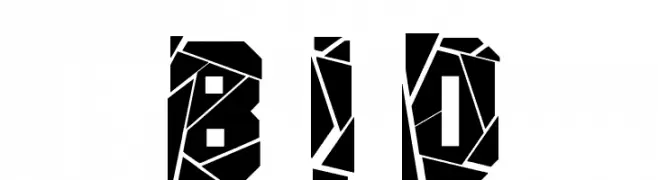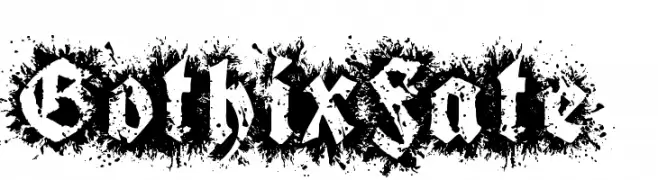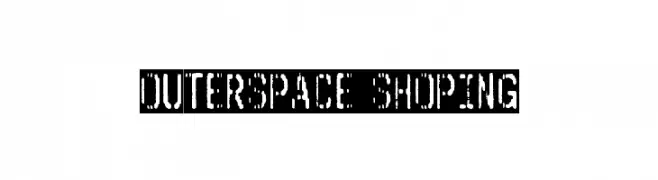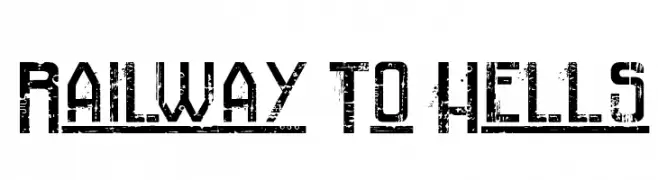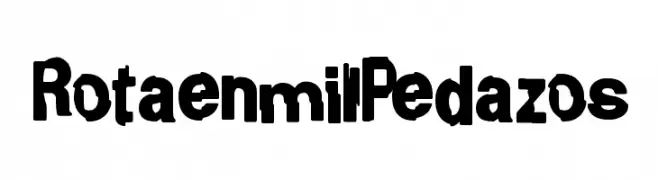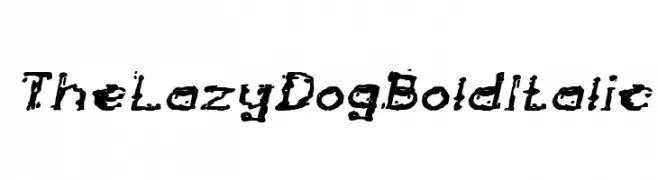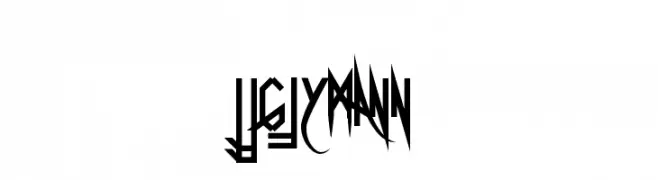
A bold, fragmented font with a dynamic and edgy appearance.
A bold, angular font with a geometric and tribal aesthetic.
A bold, fragmented font with a shattered glass effect, perfect for modern and edgy designs.
A distressed, grunge-style font with a rugged, stencil-like appearance.
A bold, Gothic-inspired font with a distressed, textured appearance.
A distressed, stencil-like font with a bold, grunge aesthetic.
A bold, distressed font with a rugged, industrial style.
A bold, gothic font with intricate, mystical detailing.
A bold, italic, distressed font with a rugged, grunge-like appearance.
A bold, distressed font with a rugged, textured appearance.